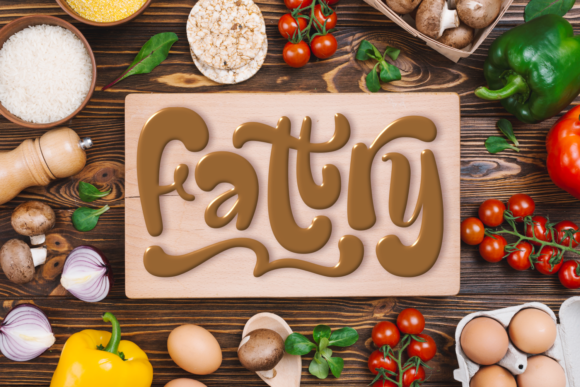
The Designer’s Delight: Getting to Know Fattry Font
I’ll never forget the time I was working on a project for a children’s book, and I just couldn’t find the right font to match the playful tone of the story. The client wanted something that would appeal to kids, but still look professional enough for a published book. After hours of scrolling through font libraries, I stumbled upon Fattry Font, and it was love at first sight! 💕
Fattry is an exciting display font that provides character and playfulness to your designs. Its unique blend of bold and whimsical elements makes it perfect for a variety of creative projects, from children’s books to posters, and even craft patterns.
An Honest Review of Fattry Font
What I Love About Fattry Font
- ✨ Unique and playful design that adds a touch of personality to any project
- ✅ Highly legible, even at large sizes
- 🎉 Extensive character set, including glyphs and stylistic alternates
- 💻 Works well with both digital and print designs
While Fattry Font is an amazing addition to any design project, there are a few things to keep in mind: 🤔
- ⚠️ May not be suitable for body text or long-form writing due to its bold and playful nature
- ⚠️ Some characters may require manual kerning for optimal spacing
The Backstory of Fattry Font
Fattry Font was designed with the intention of creating a unique and playful font that would add character to any design project. The designer, inspired by the world of children’s books and illustration, set out to create a font that would be both fun and functional. With its bold and whimsical elements, Fattry Font is the perfect addition to any creative project.
| Font Name | Fattry Font |
| Author | Situjuh |
Q: What type of projects is Fattry Font best suited for?
A: Fattry Font is best suited for creative projects that require a playful and bold font, such as children’s books, posters, and craft patterns.
Q: Is Fattry Font easy to read?
A: Yes, Fattry Font is highly legible, even at large sizes, making it perfect for headings and titles.
Q: Can I use Fattry Font in digital designs?
A: Yes, Fattry Font works well with both digital and print designs, making it a versatile addition to any design project.